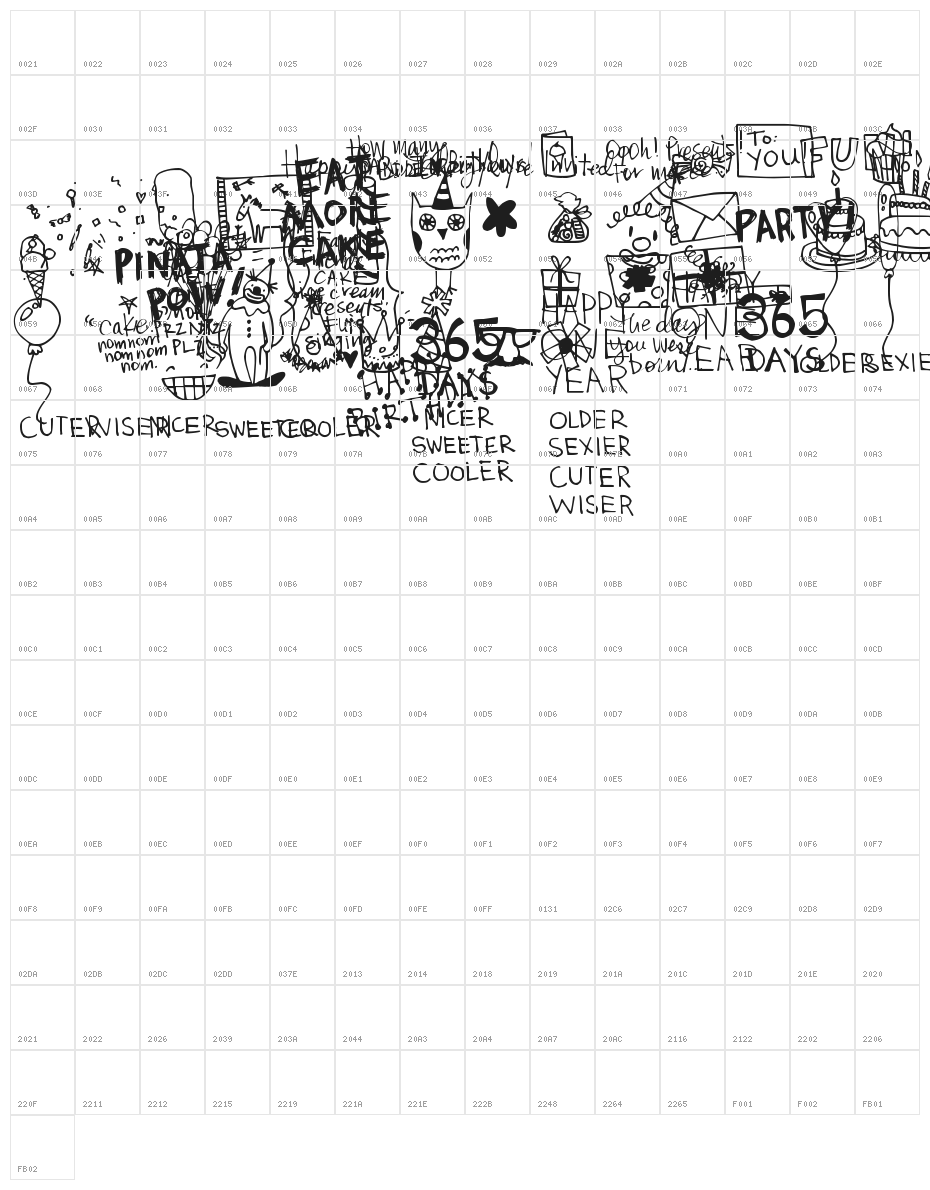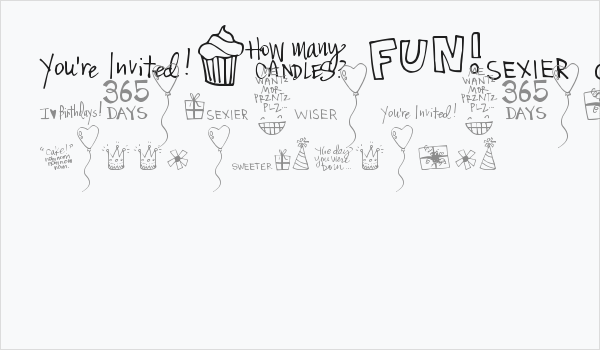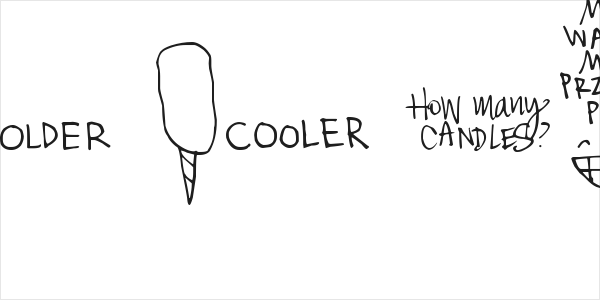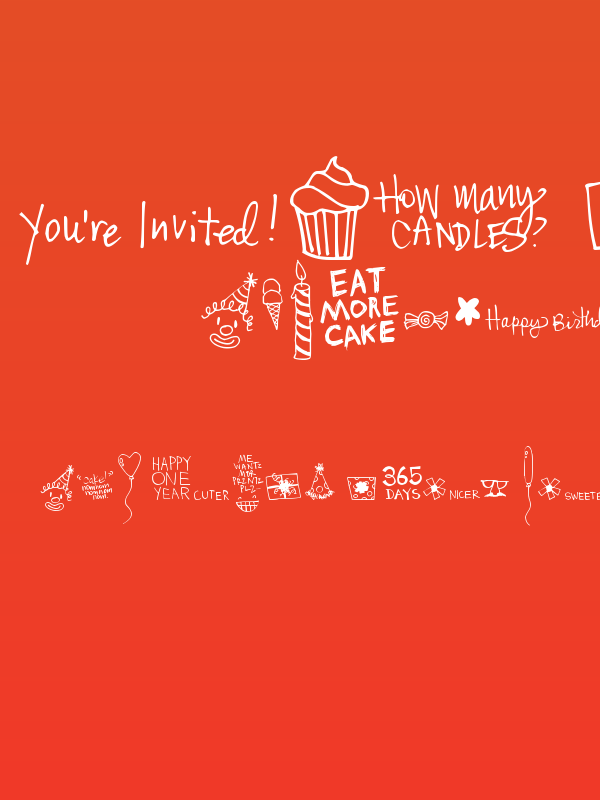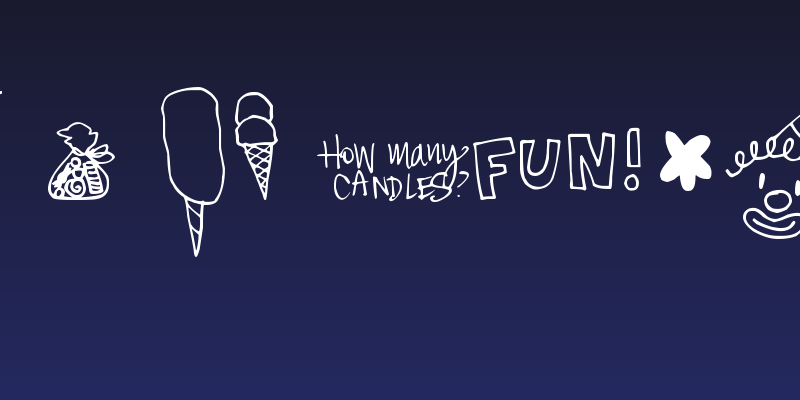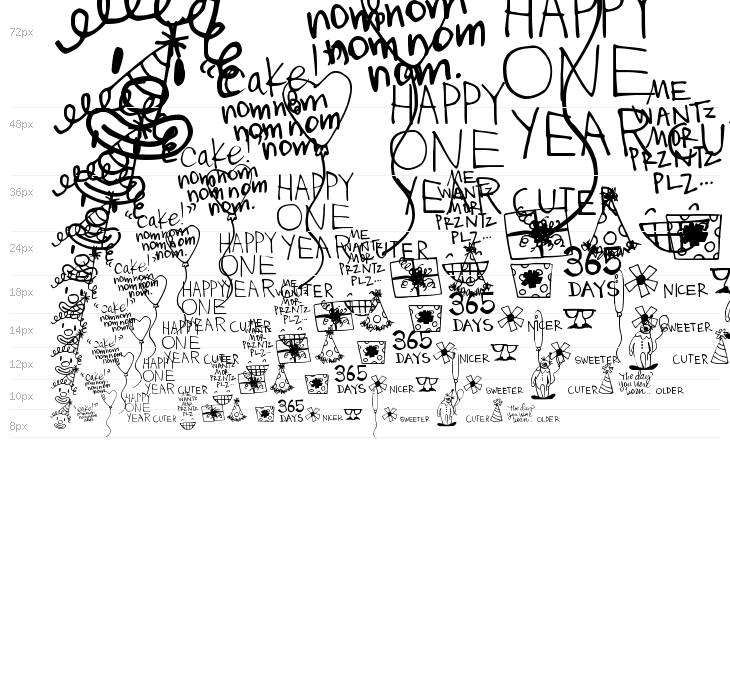
DJB It's My Birthday Font
DJB It's My Birthday Description
This playful and whimsical font is designed to capture the essence of a fun birthday celebration. It features a mix of hand-drawn elements and quirky characters, creating a lively and festive atmosphere. The letters are uneven and have a casual, handwritten style, which adds to the charm and spontaneity of the design. The font includes a variety of birthday-themed illustrations, such as cakes, balloons, and party hats, making it perfect for celebratory occasions. Its informal and lighthearted nature makes it ideal for projects that aim to convey joy and excitement.
Overall StyleWhimsical
Use CaseHeadlines, Invitations, Greeting Cards
Proposed ProjectsIdeal for birthday invitations, greeting cards, party decorations, and festive banners.